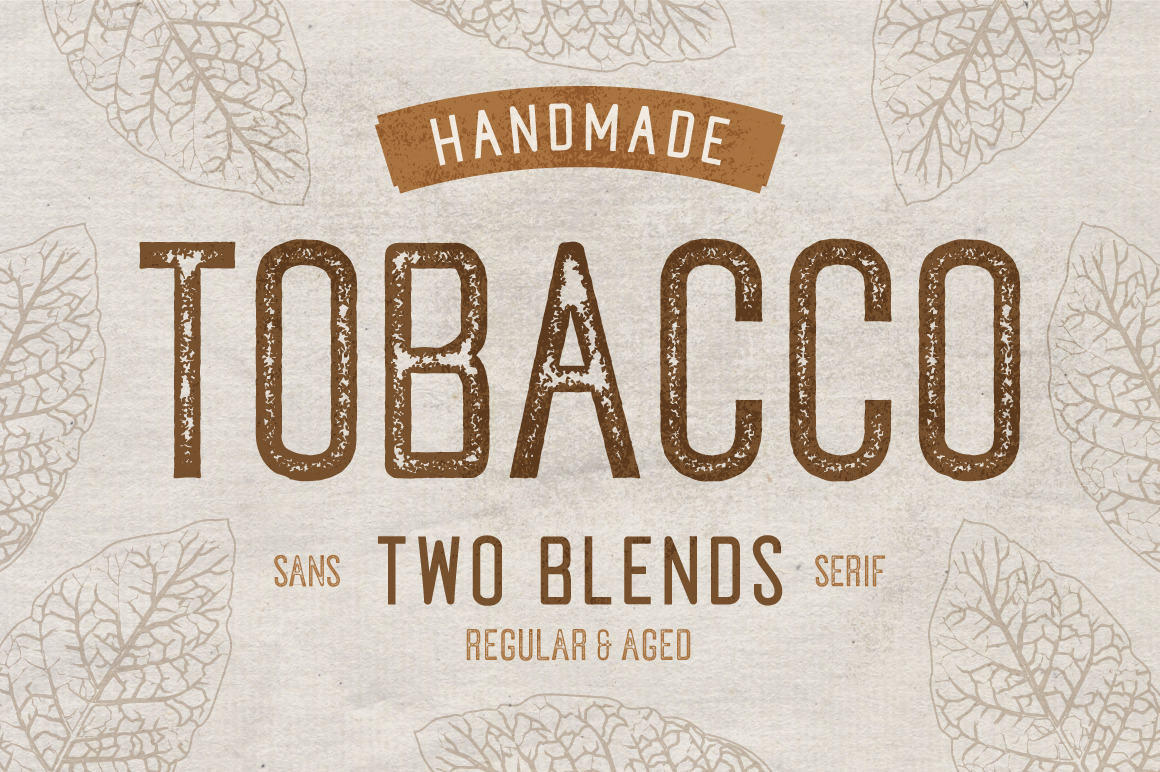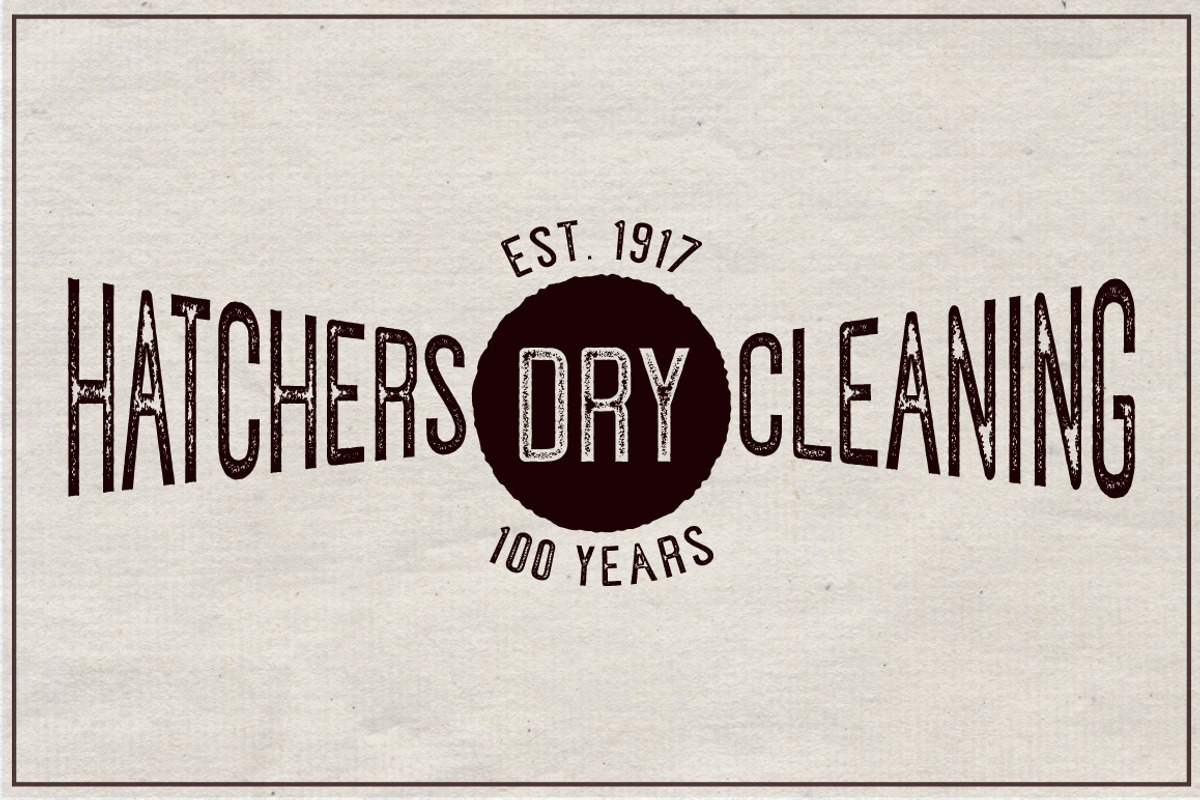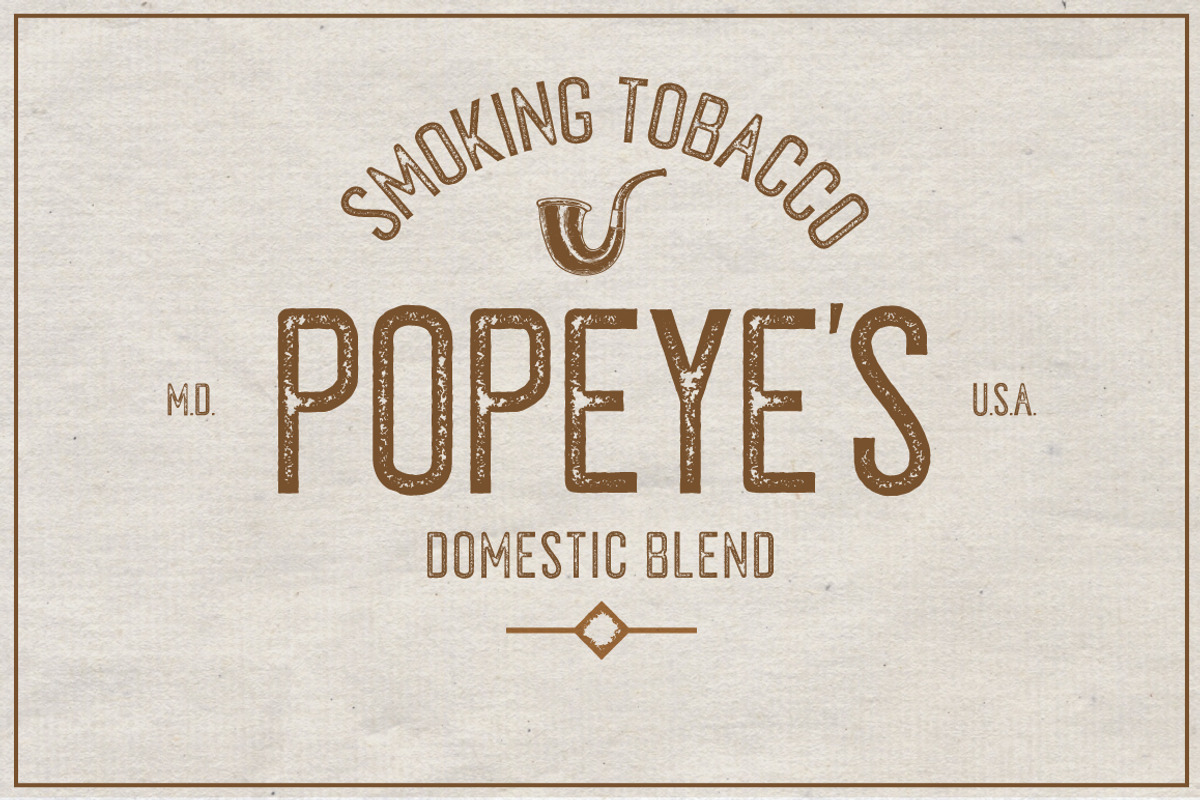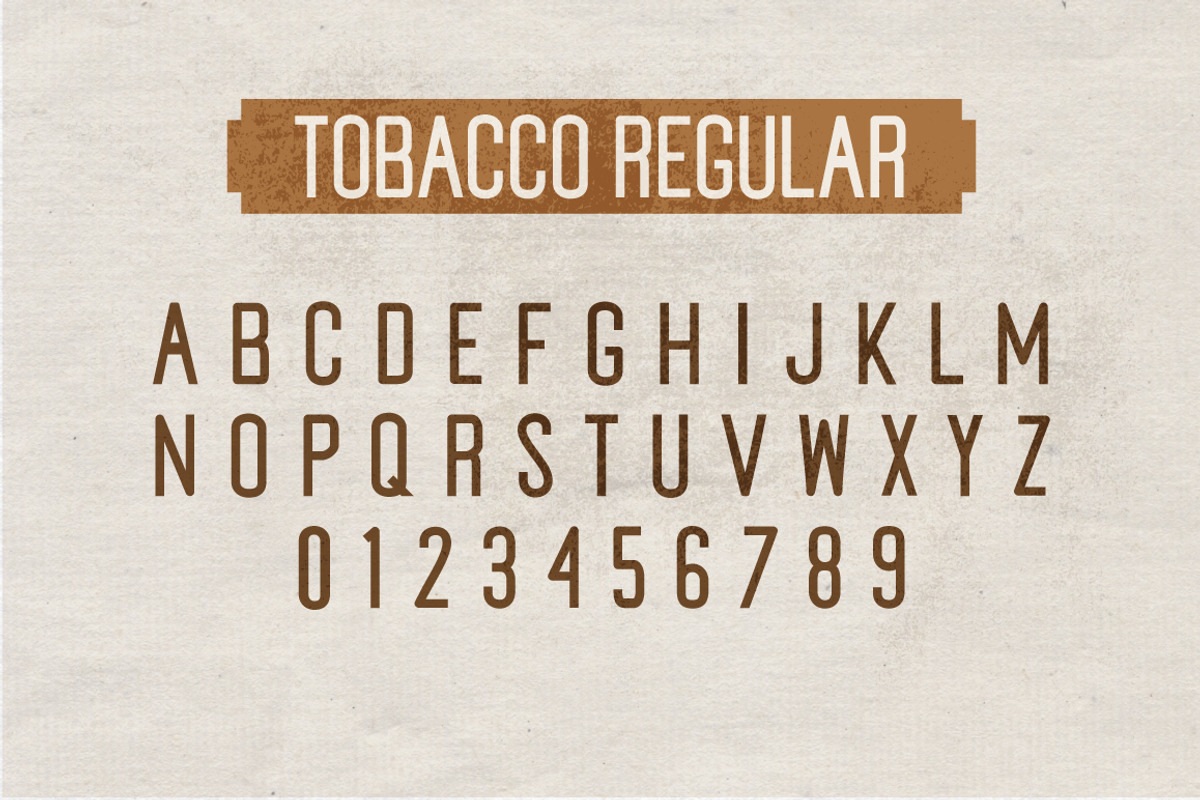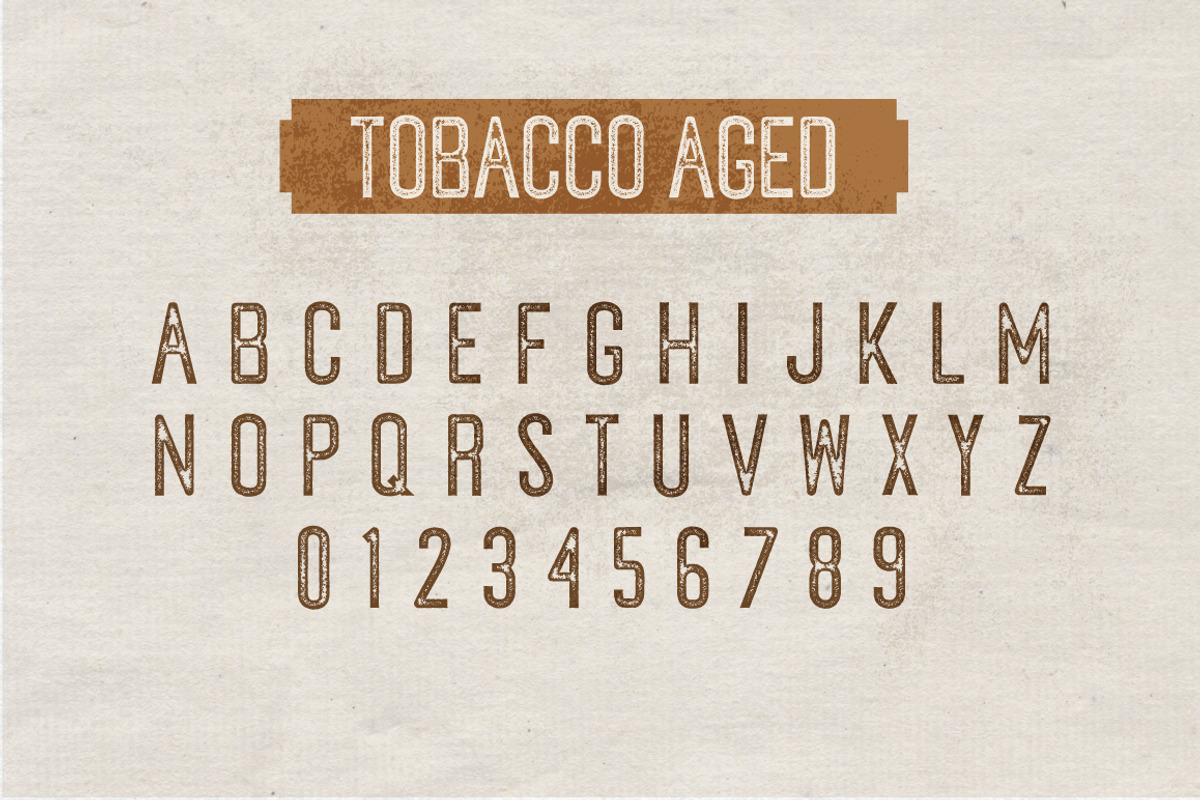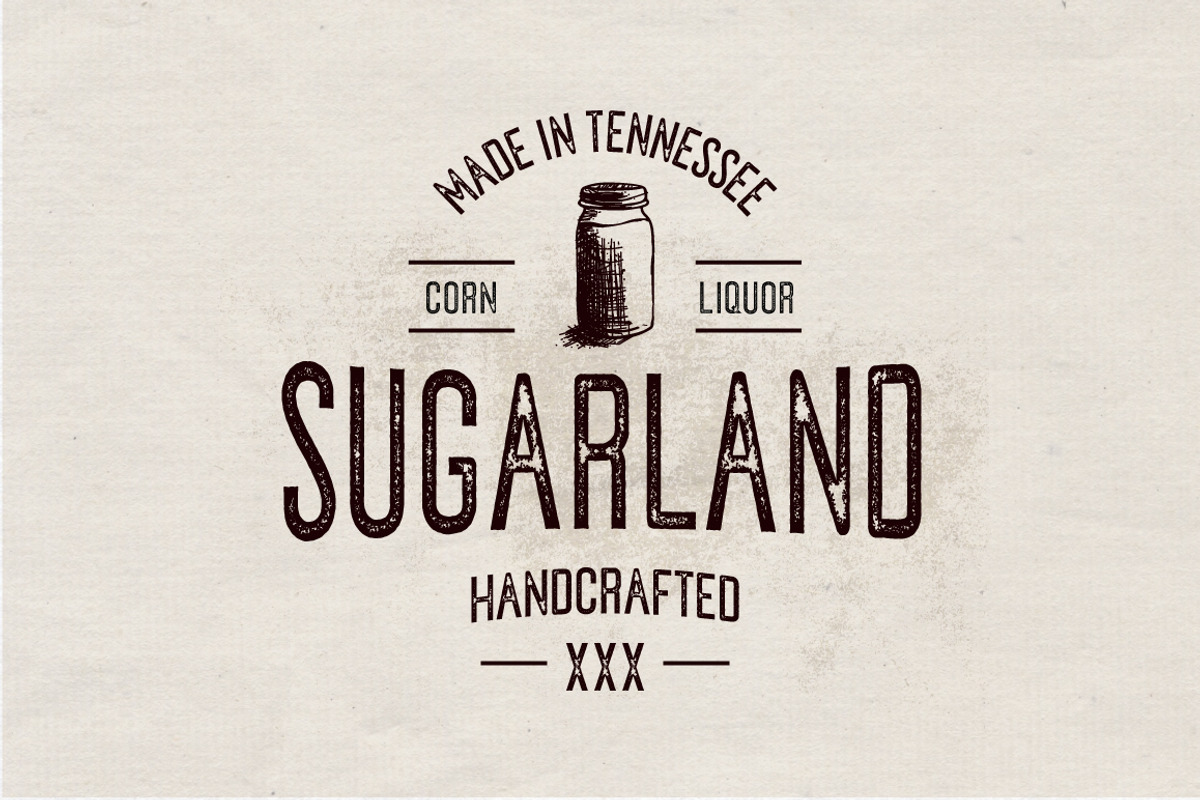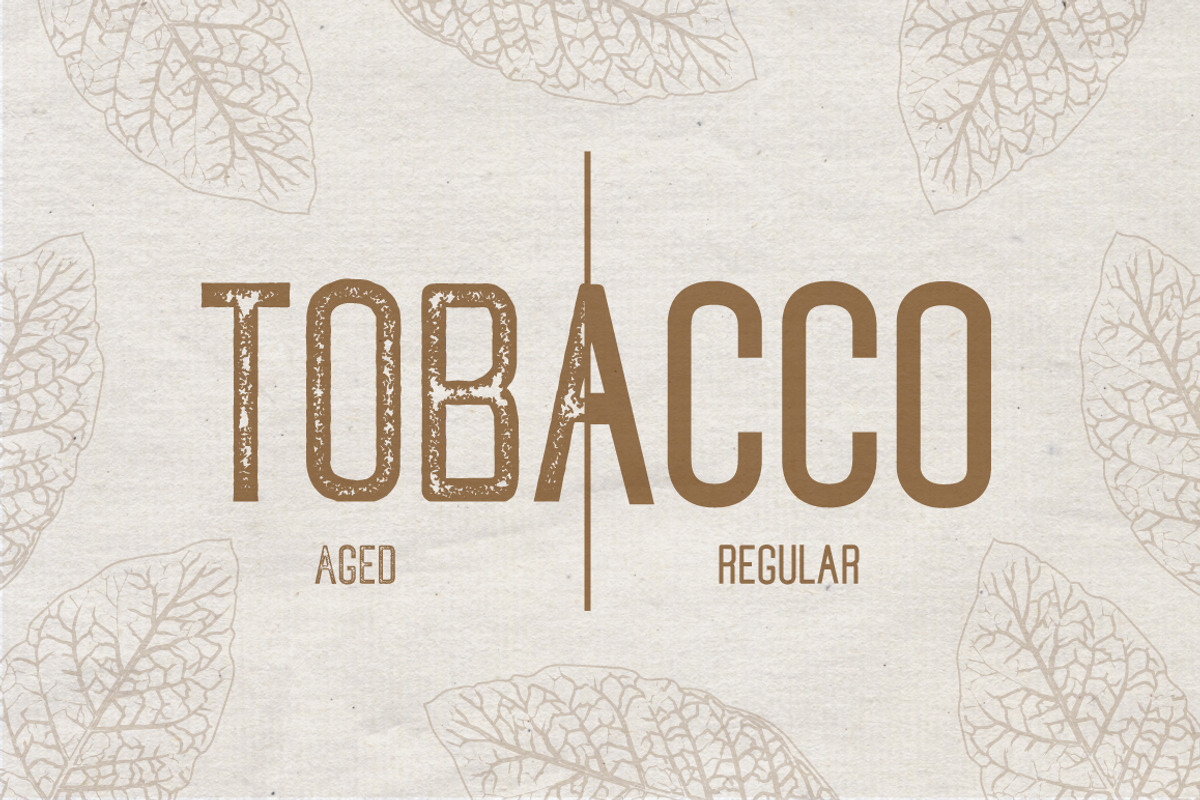
Tobacco Typeface
Tobacco, A Handmade Sans Serif in Two Styles
Tobacco comes in two styles: one is rough and gritty for distressed graphics, vintage labels, and display headlines; the other is clean and versatile for logos, lettering graphics, and just about any project that requires a sans serif typeface with character. Tobacco was hand-drawn and designed for use in labels and brand assets; however, these two styles work perfectly together to create a unique, vintage design aesthetic for any your projects.